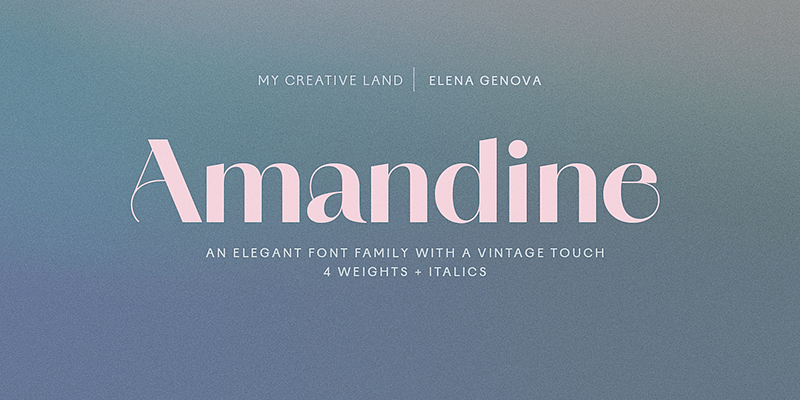
Amandine Font is perfect for French patisserie branding, delicate confectionery packaging, romantic wedding invitations, elegant boutique materials, artisanal almond product labels, and sophisticated feminine design projects. Its sweet character makes it ideal for French bakeries, luxury confectioners, bridal boutiques, intimate cafés, and any application requiring charming typography that conveys French elegance, delicate sweetness, and romantic sophistication.
Amandine Font is exciting because it captures the delicate sweetness and romantic charm of French confectionery culture through gracefully refined letterforms that evoke the gentle elegance of almond pastries and Parisian patisseries. Its tender proportions and feminine details reflect the artisanal tradition of French pastry making, making it perfect for brands seeking to convey authentic French charm and delicate sophistication. The font's sweet character transforms ordinary text into expressions of romantic French elegance.
Amandine Font family includes delicately crafted weight variations typically featuring Light, Regular, and Medium options with flowing italic styles that honor French typographic traditions. The family often incorporates romantic flourishes, delicate ornaments, and refined character sets designed for luxury confectionery applications, providing designers with comprehensive tools for creating authentic, French-inspired typographic experiences.
When selecting romantic French typography solutions, Amandine Font Free Download represents an exceptional choice for elegant confectionery projects. This charming typeface brings instant French authenticity to any design, making it invaluable for patisseries, luxury food brands, and romantic event planners celebrating French culture. Whether you're developing French bakery branding, creating romantic wedding materials, or designing delicate product packaging, Amandine Font provides the French elegance and romantic sweetness essential for capturing the essence of Parisian sophistication in today's romance-seeking marketplace.